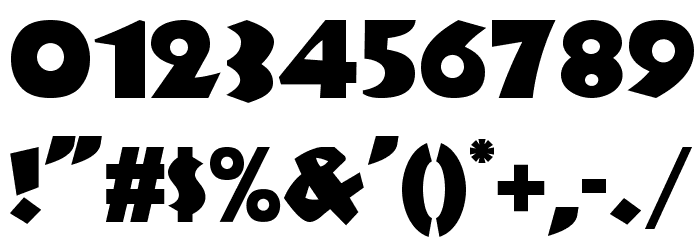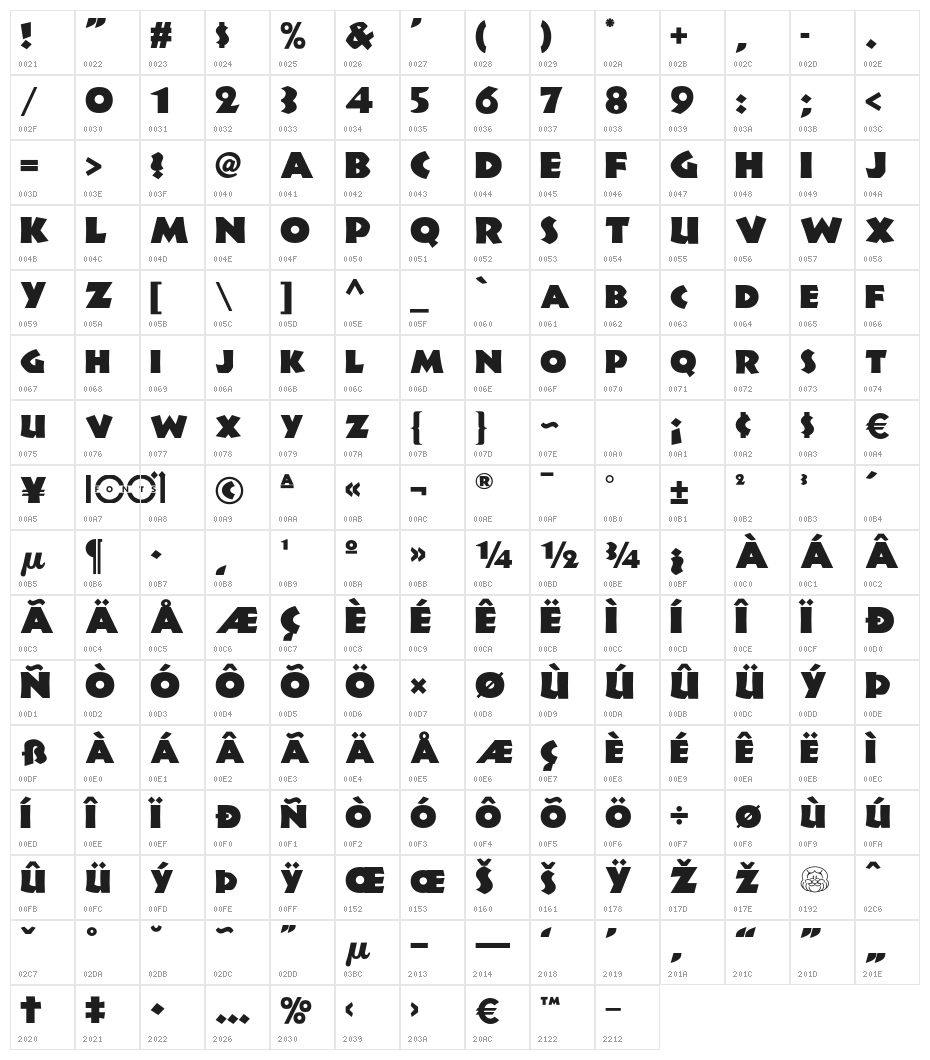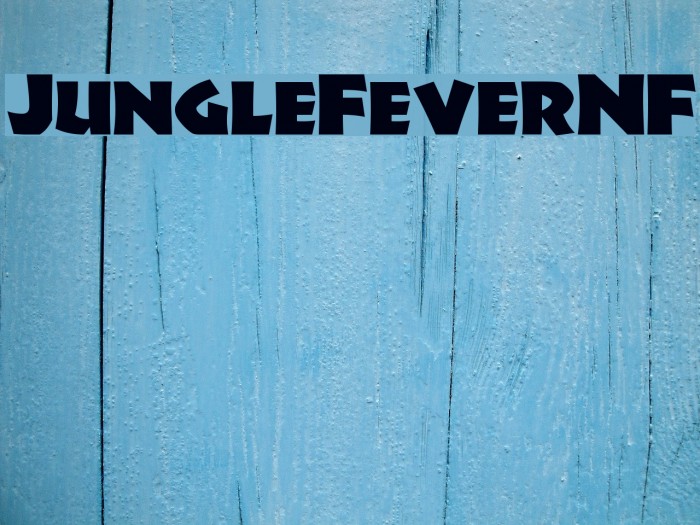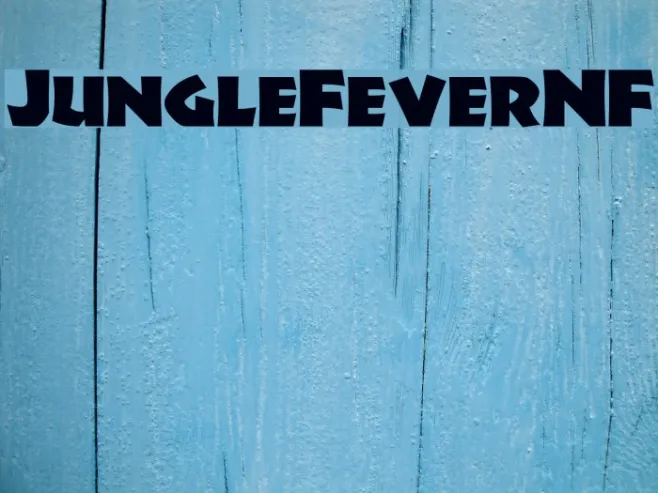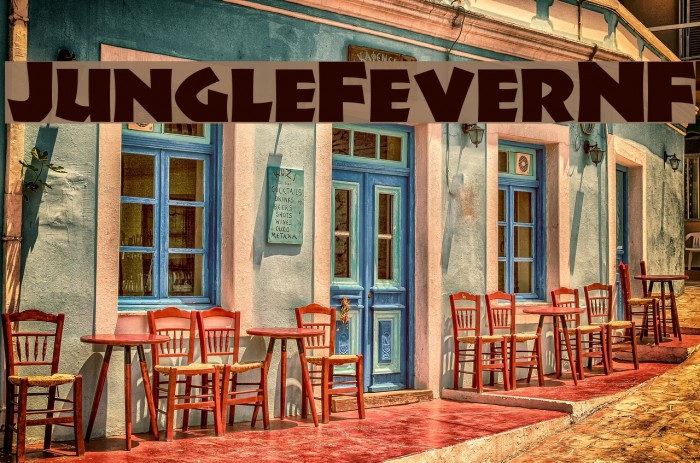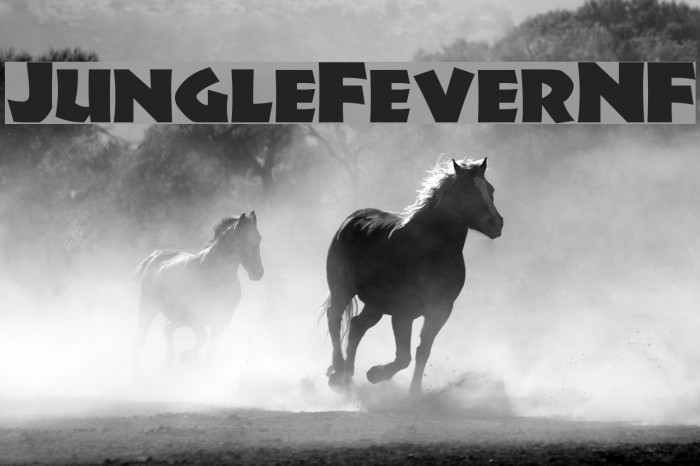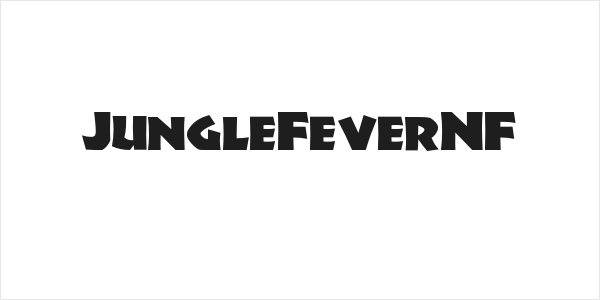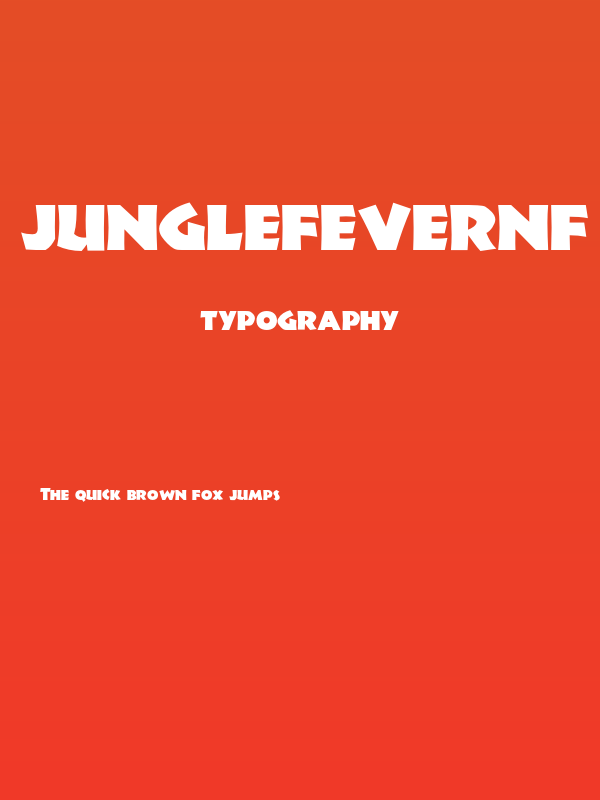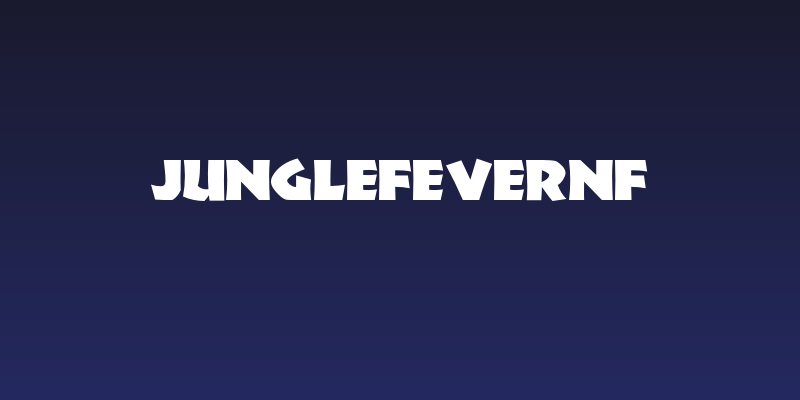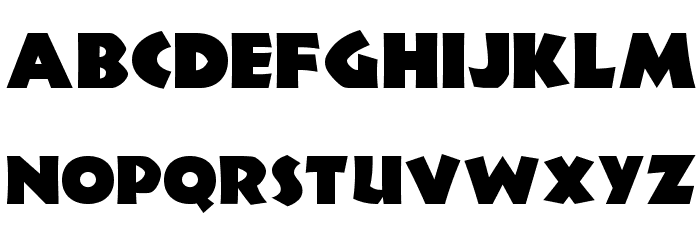
JungleFeverNF Font
JungleFeverNF Description
This font features a bold and adventurous style, characterized by its thick, angular strokes and playful, dynamic shapes. The letters have a strong presence, with a slightly irregular form that adds a sense of movement and energy. The uppercase and lowercase letters maintain a consistent weight, creating a cohesive look. The numbers and special characters follow the same bold and lively design, making the font suitable for eye-catching displays. Its unique style is reminiscent of jungle themes, with a touch of whimsy and excitement.